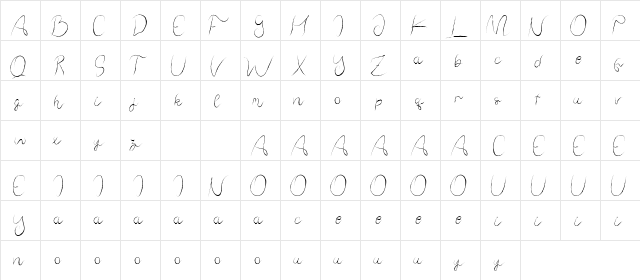
Wolven Shevana Demo Regular
Design Context for Wolven Shevana Demo Typeface
Wolven Shevana Demo is a composed and adaptable typeface that performs quietly and consistently across a wide range of design contexts.